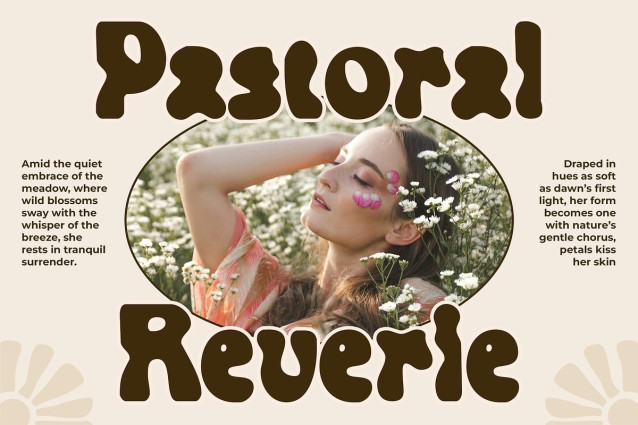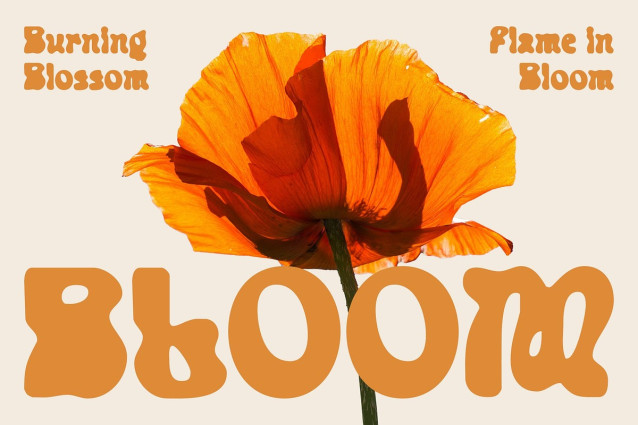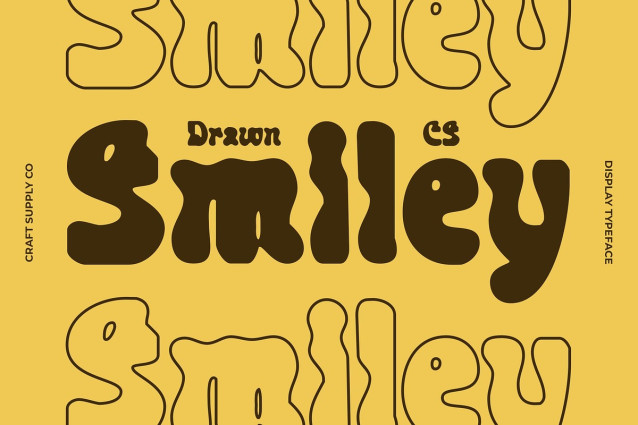
CS Smiley Drawn Font
CS Smiley Drawn thrives on breaking the rules. With rough, uneven lines and an intentionally “ugly” charm, it rejects perfection to embrace personality. This bold choice makes it stand out, giving designs an offbeat and expressive character.
Hand-Drawn Authenticity Every letter carries hand-drawn details that enhance its raw, stamped texture. The imperfect strokes give the font depth and energy, making it feel spontaneous and alive. This handcrafted approach creates an organic style that feels both experimental and creative.
Unconventional and Expressive Unlike clean, polished fonts, CS Smiley Drawn is designed to be unconventional. Its irregularities become its strength, allowing it to channel vibrancy, movement, and artistic freedom. This expressive nature makes it ideal for designers who want their work to feel playful and different.
Perfect for Creative Projects CS Smiley Drawn is perfect for creative branding, posters, packaging, or vibrant visual art. Whether used to grab attention with its quirky energy or to add personality to a bold design, this font ensures that your work leaves a memorable impression.